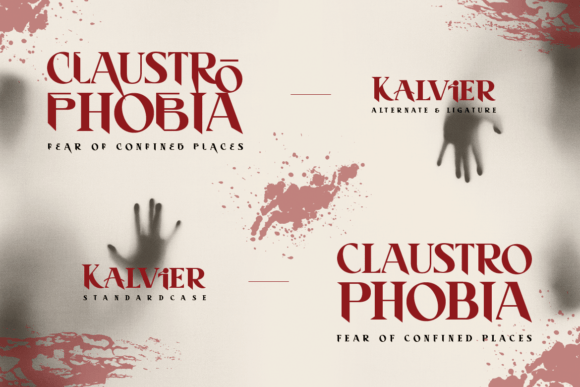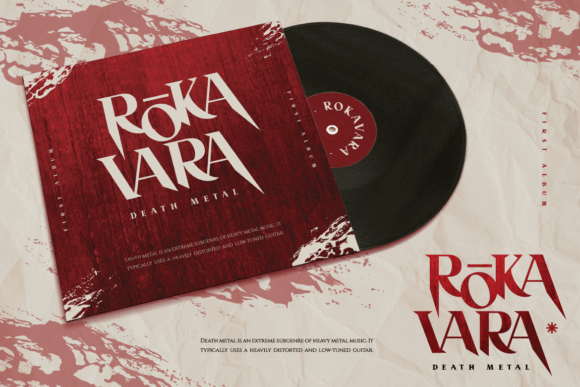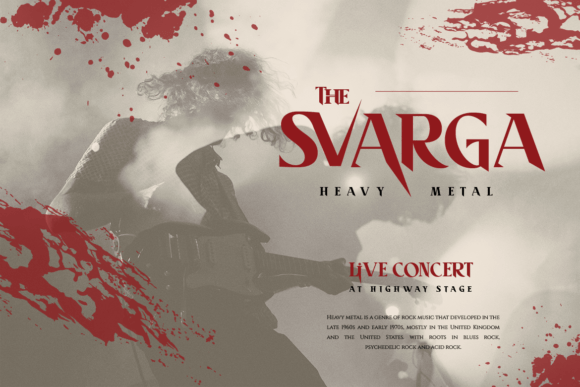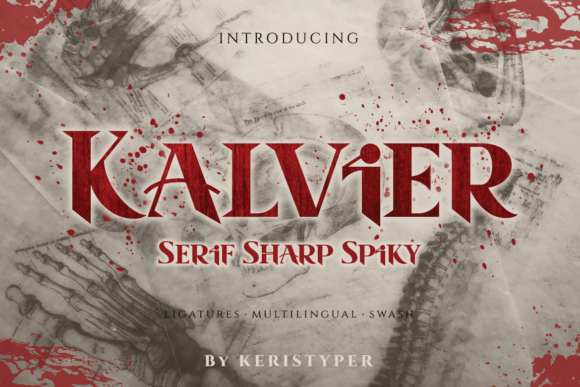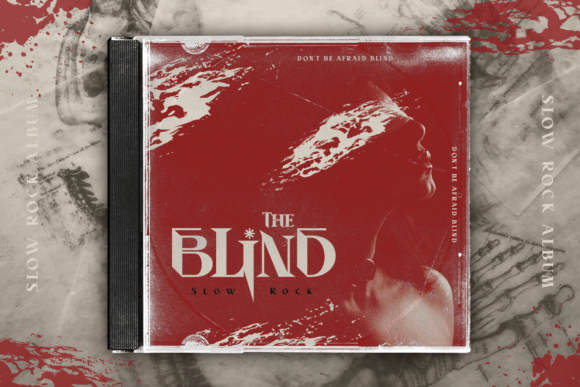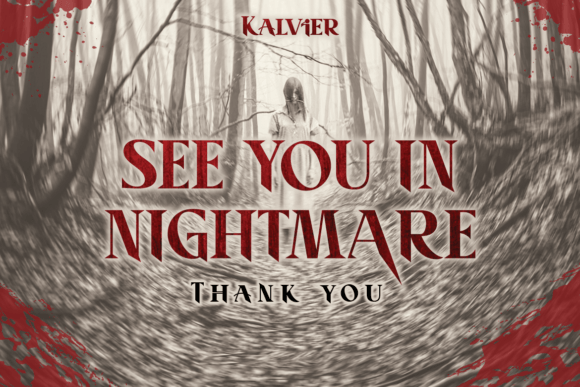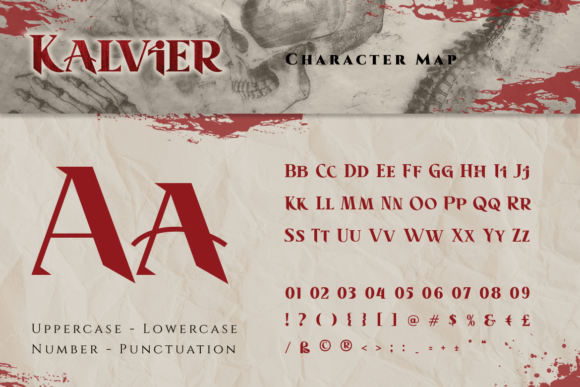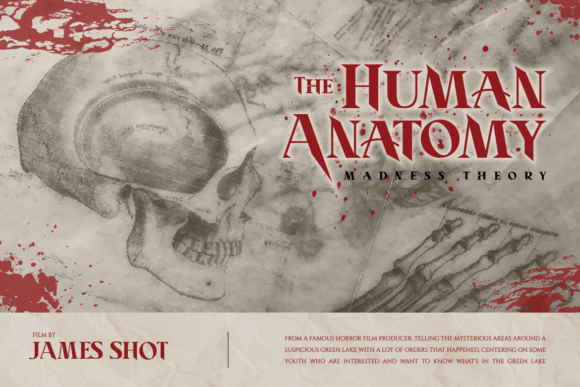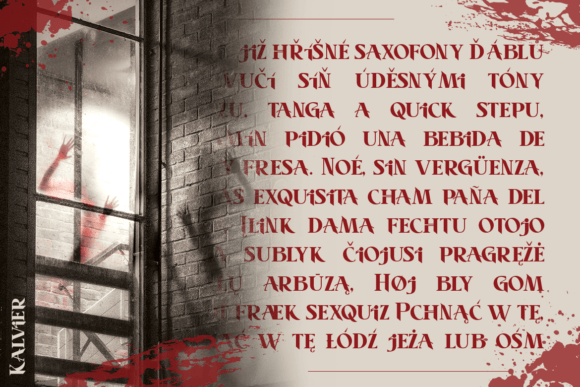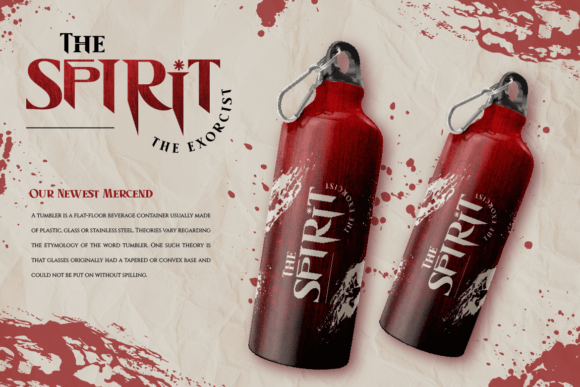
Kalvier Font
KALVIER FONT SPECIMEN
Introducing Kalvier, a horror slab serif font for your Halloween project with a sharp and spiky style. This font is good for logo design, Social media, Movie Titles, Books Titles, short text, and even long text.